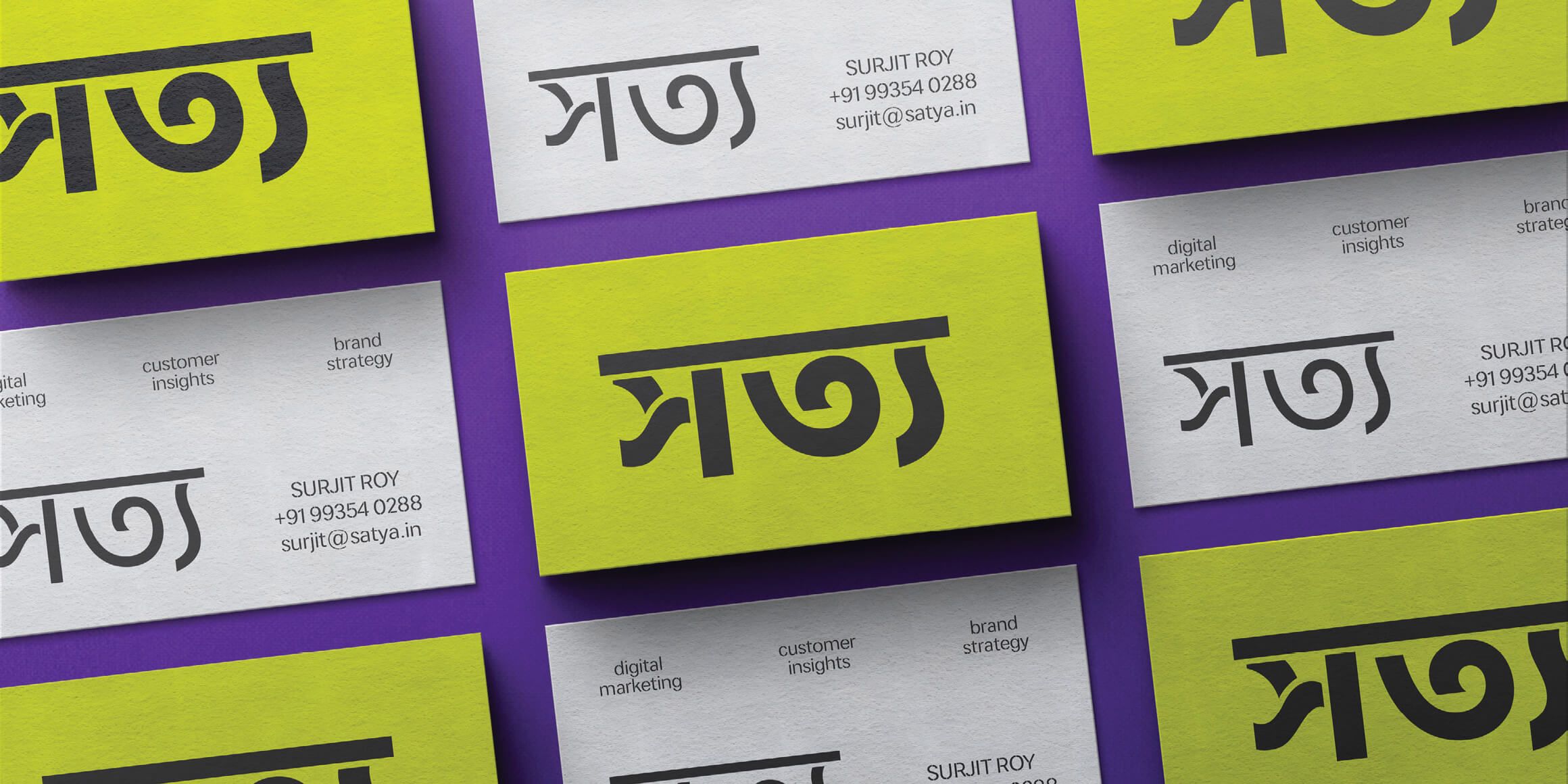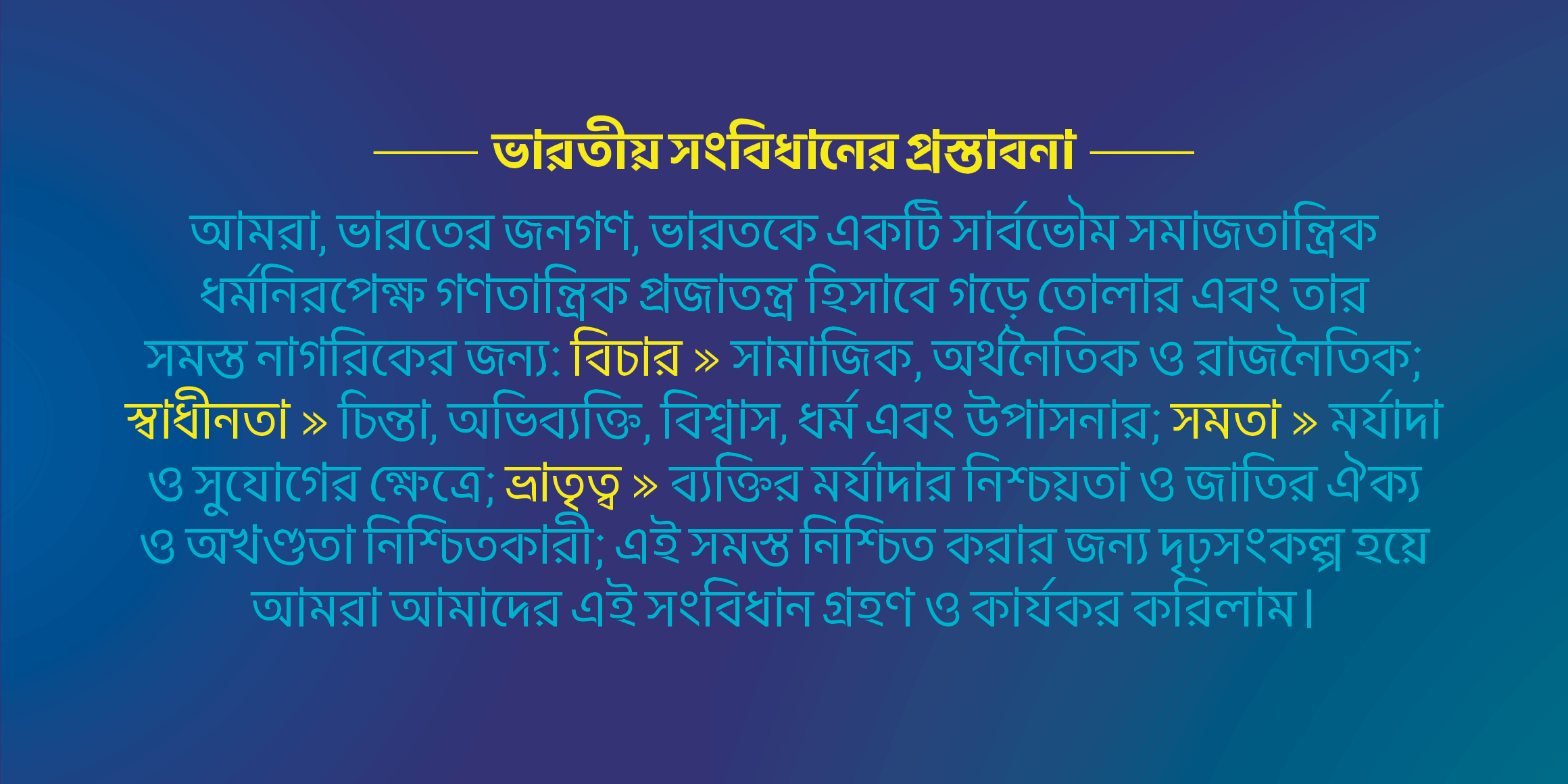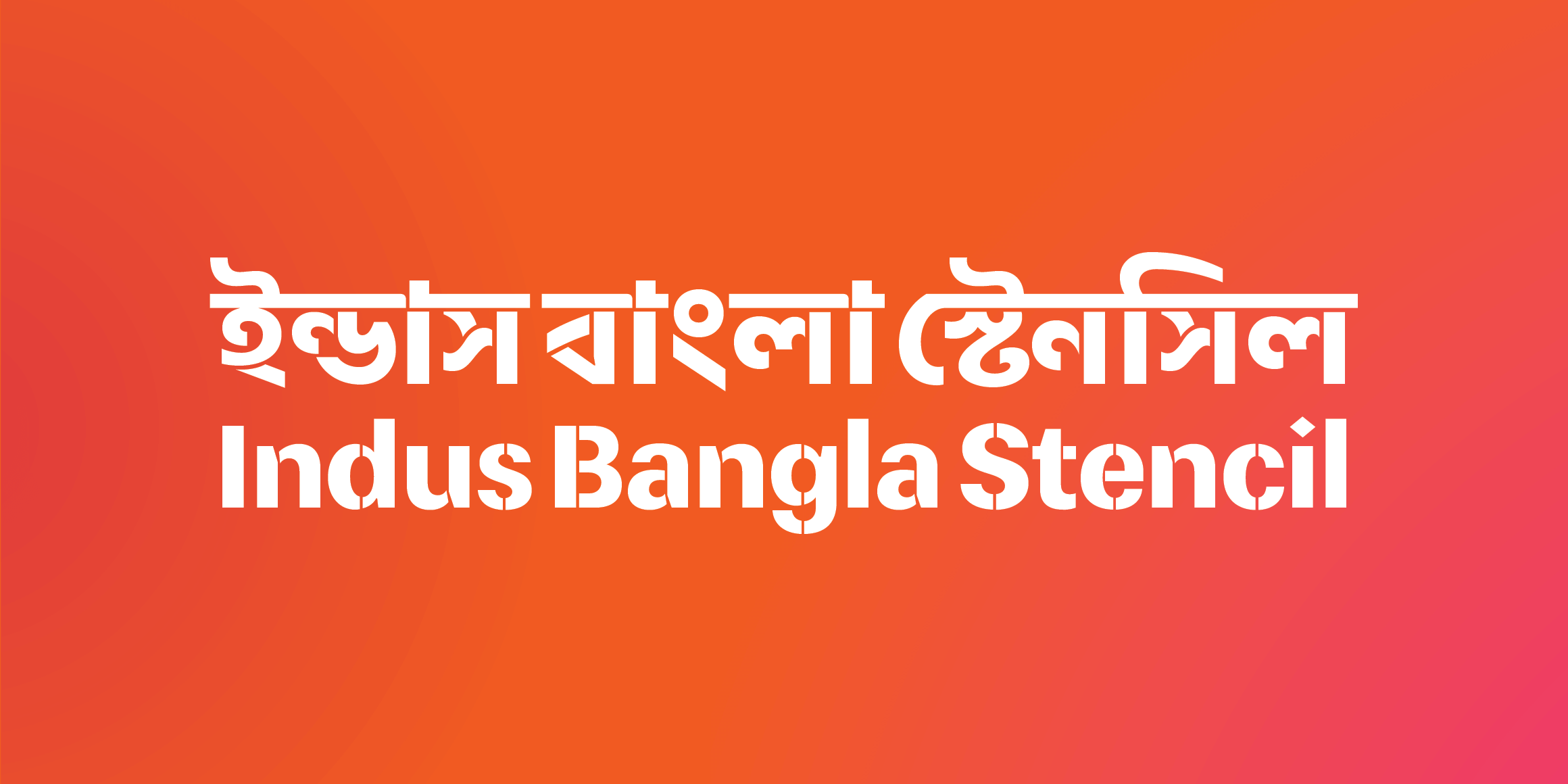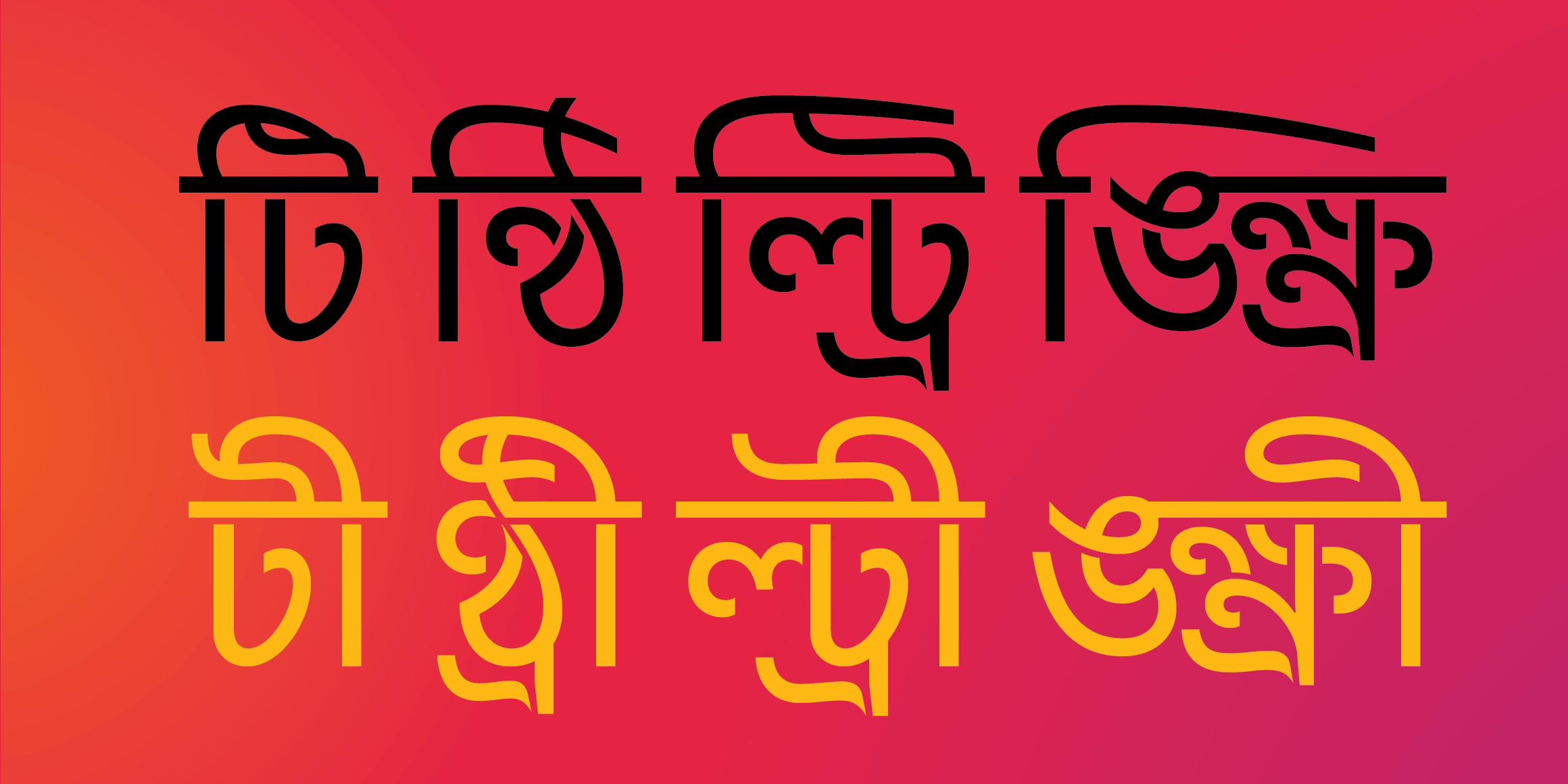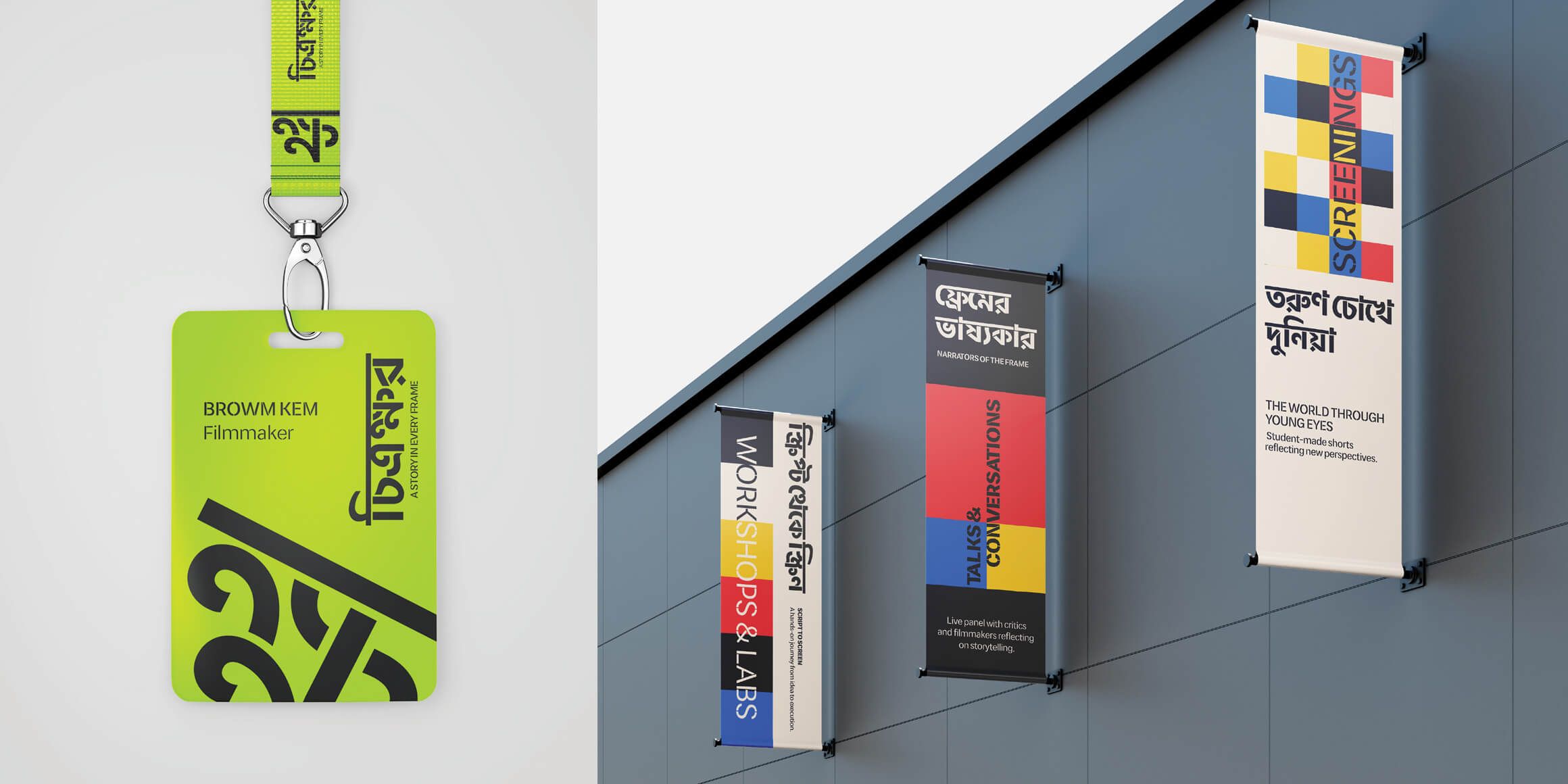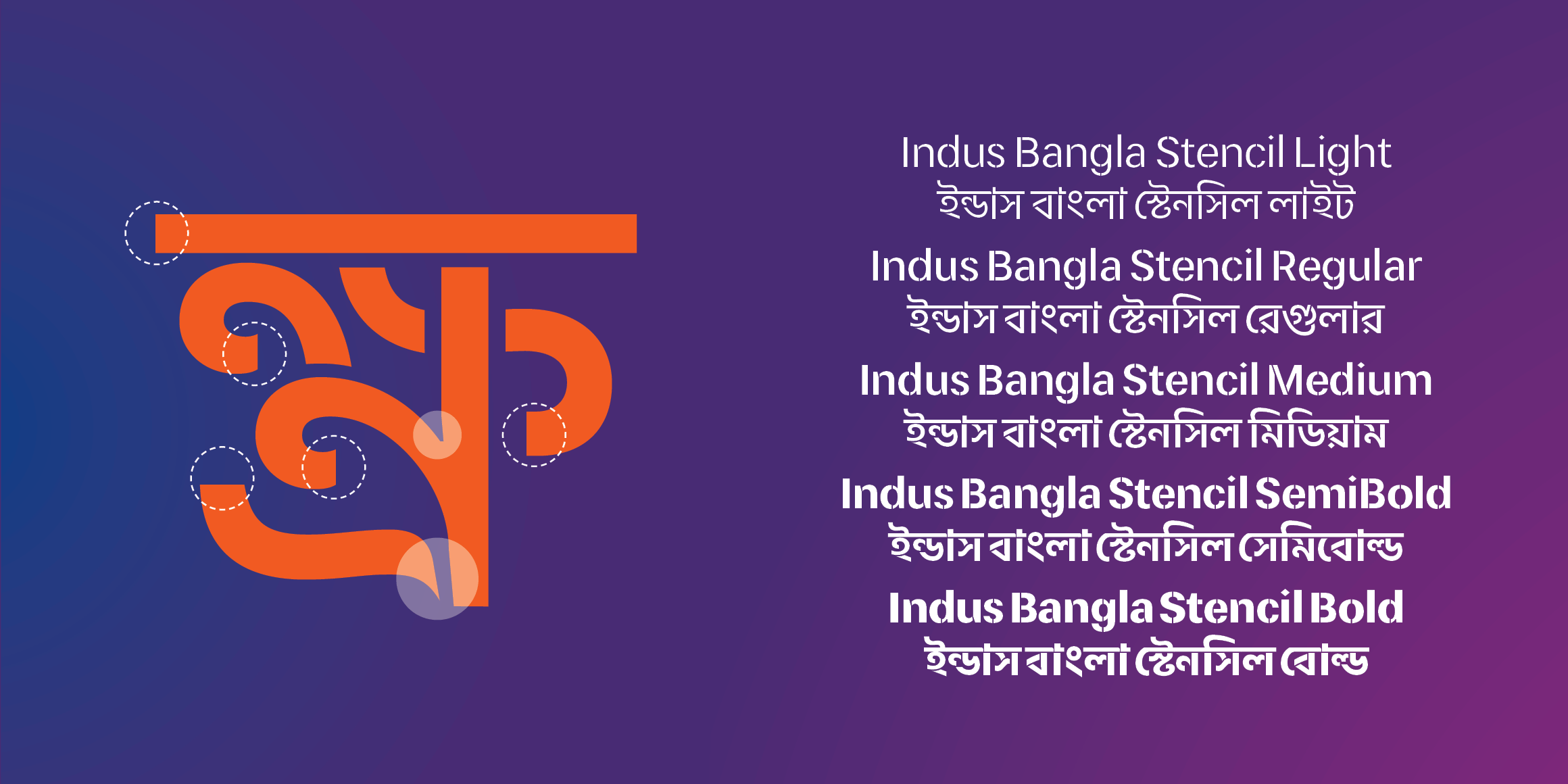
Indus বাংলা Stencil
Indus Bangla Stencil is the companion stencil style of the Indus Bangla type family, adding a dynamic and playful dimension to its overall aesthetic. The stencil cuts are carefully integrated to preserve the natural flow of the strokes, ensuring legibility while retaining the distinctive stylistic features.